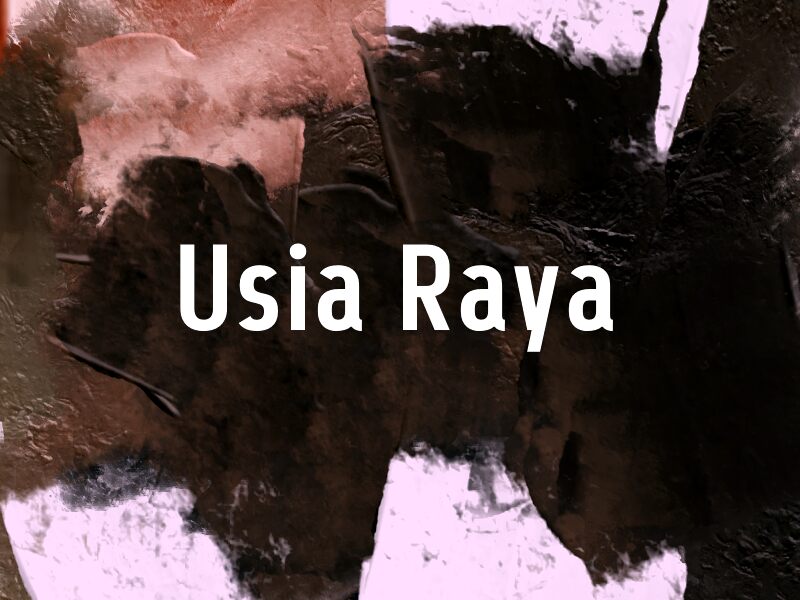
Usia Raya font by wepfont.com is a free font with a clear, modern sans serif style in its design. This well-balanced geometric typeface is perfect for contemporary media applications that can range from digital to print. Its sense of clarity and simplicity makes it suitable for minimalist uses in a wide range of visual identities, a website, web application, or branded software’s UI.
A professional look makes the font effective for branding, marketing, and any graphic design project. For headings, subheadings, and body text, try combining different font weights to achieve a truly great contemporary design with this font’s help. Use it in magazines, brochures, posters, social media content, business cards, or logos.
Usia Raya is a stunning free font that combines elegance with modern style, perfect for a variety of design projects. Designed for versatility, this font can be used in everything from headlines to logos, giving your work a unique flair.
With its clean lines and contemporary feel, Usia Raya stands out in both digital and print formats. Whether you're creating eye-catching graphics or stylish presentations, this free font ensures your text makes an impactful statement.